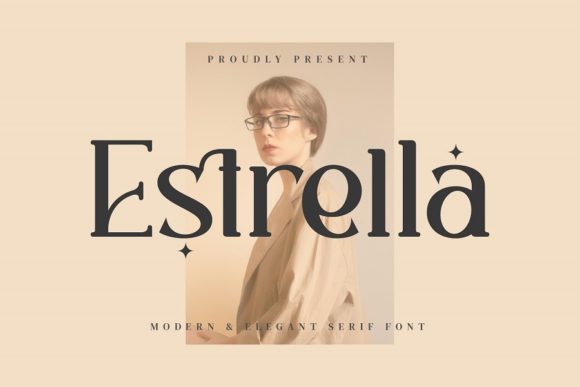
Immerse yourself in the world of eloquence with Estrella Font, a modern and elegant serif font carefully crafted by Aqeel_Art. This font exudes sophistication and grace, designed to elevate your creative projects to new heights. With its meticulously crafted curves and striking serifs, Estrella Font adds a touch of timeless beauty to any design.
Let your words shine with an air of distinction, whether composing captivating APA style papers, crafting heartfelt love letters, or designing elegant invitations. Estrella Font's versatility extends beyond the boundaries of academic writing, allowing you to weave captivating stories, express heartfelt emotions, and create designs that resonate with your audience.
Indulge in the limitless possibilities that Estrella Font presents. Its timeless charm lends itself seamlessly to a myriad of creative endeavors. From branding projects that demand a touch of sophistication to wedding invitations that exude romance, Estrella Font effortlessly elevates your designs, leaving a lasting impression.
Unlock the power of expression with Estrella Font. Its carefully balanced strokes and graceful letterforms create a visual symphony that captivates and inspires. Transform your words into works of art, leaving your readers spellbound by the beauty and elegance of your creations.